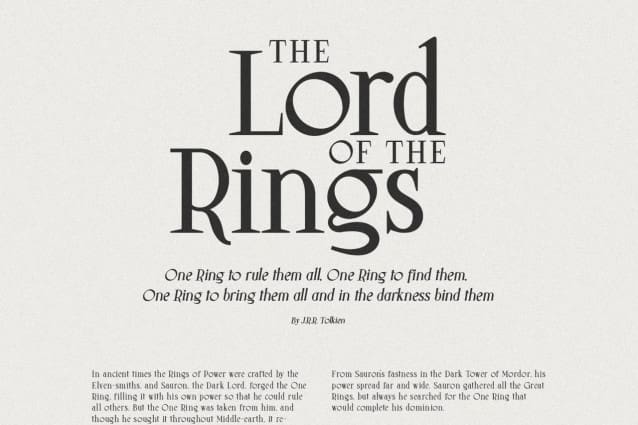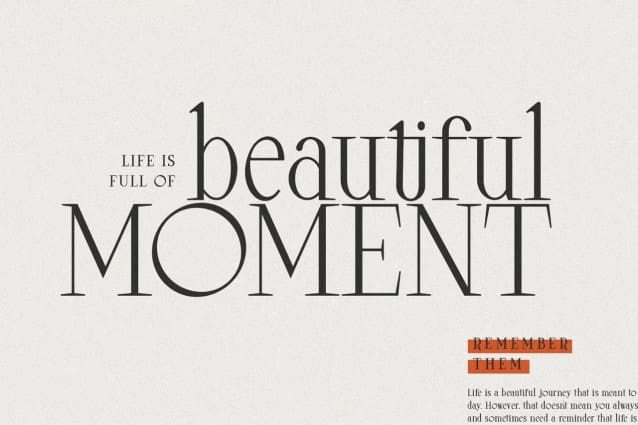
Little Muffin Font
Little Muffin Font, a lovely serif font family with a modern feel. The elegant design was created by fusing modern and vintage elements. When it comes to choosing the right typographic color for your project, the different weights give you a lot of options.